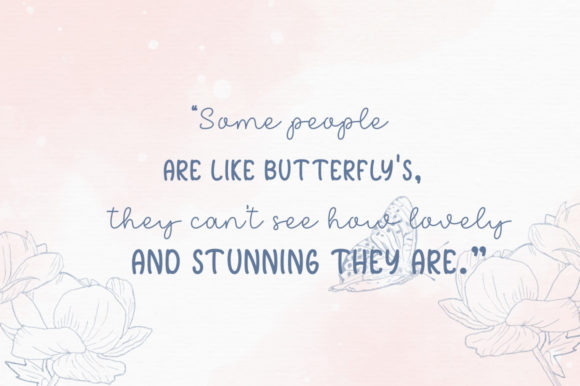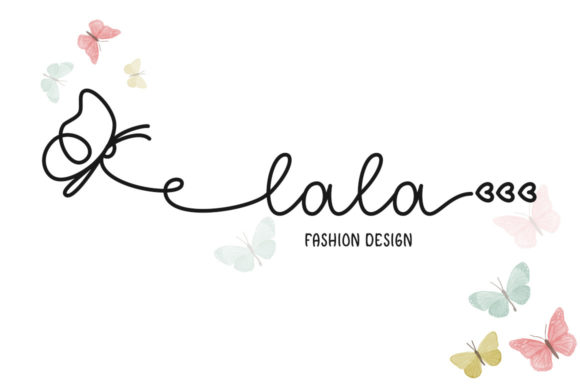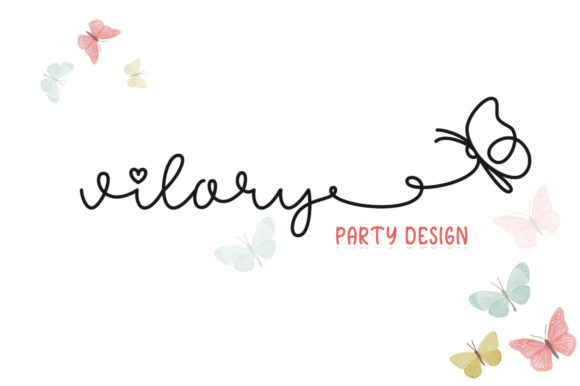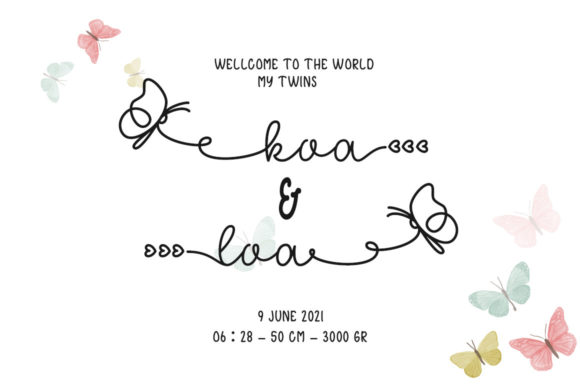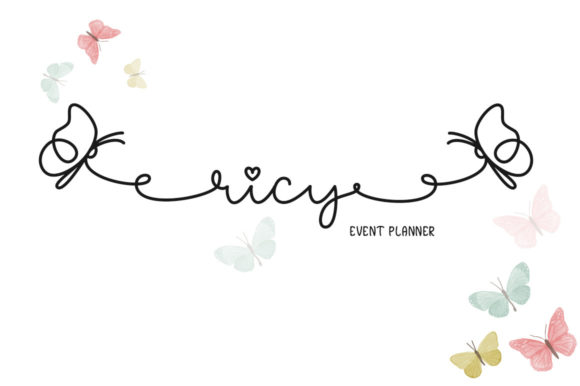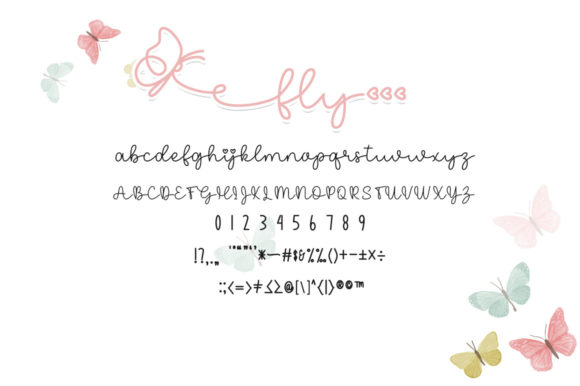
Designing a Masterpiece: Introducing the Butter Fly Font
Have you ever sat in front of your computer, staring blankly at a blank canvas, and suddenly, a spark of creativity ignites within you? It’s that magical moment when your imagination runs wild, and you can envision the perfect design unfolding before your eyes. For many designers, this moment is the starting point of a beautiful journey, and with the right tools, the possibilities are endless.
That’s where the Butter Fly Font comes in – a stunning duo font that combines the elegance of a display font with the whimsy of a handwritten one. This versatile font is perfect for designers who want to add a touch of sophistication and playfulness to their creations. With its PUA encoding, accessing all glyphs and swashes is a breeze, making it a valuable asset for any design project.
- Font Family: Butter Fly
- Unique Characteristics: Unique, cursive script font with a playful, whimsical feel; perfect for creative projects, invitations, and decorative typography
Butter Fly Font Review
Overall, I think the Butter Fly Font is an interesting choice for designers looking for something unique.
- ✨ It has a playful, whimsical feel that’s perfect for children’s books, party invitations, or other fun designs.
- ✨ The font is highly customizable, with a range of options for adjusting the size, color, and spacing.
- ✨ It’s a great choice for designers who want to add a touch of elegance and sophistication to their designs.
- ⚠️ The font can be difficult to read in smaller sizes or at a distance, which may limit its use in certain applications.
- ⚠️ It may not be the best choice for designs that require a high level of professionalism or formality.
- ⚠️ The font can be quite busy, which may make it difficult to use in conjunction with other bold or ornate elements.
Overall, I think the Butter Fly Font is a great choice for designers who want to add a touch of personality to their work.
Just be aware of its limitations and use it thoughtfully in your designs.
The Butter Fly font is ideal for creating playful and whimsical designs. Use it for:
- Children’s book covers
- Party invitations
- Food labels and packaging
- Wedding stationery
Experiment with different font sizes, colors, and styles to achieve the desired effect. Pair the font with bold or cursive fonts for contrast. Use the font in combination with graphics and illustrations to create visually appealing designs.